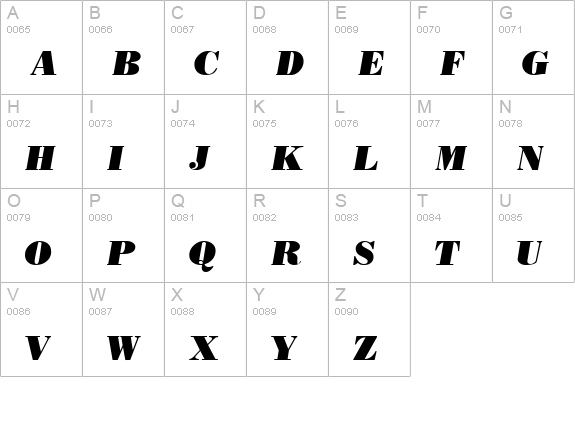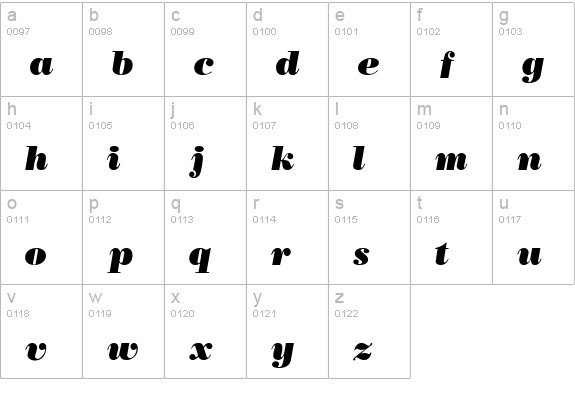
BostonBlack kursiv Font Details
Introducing BostonBlack kursiv font, a sleek and sophisticated typeface perfect for adding a touch of elegance to any design project. This unique font features bold, slanted letterforms that exude a sense of modernity and style. With its clean lines and dramatic flair, BostonBlack kursiv is sure to make a statement in any application. The best part? BostonBlack kursiv font is available for free download at FontsMarket.com. Whether you're working on a branding project, website design, or any other creative endeavor, this font is a versatile choice that will elevate your work to the next level. Don't miss out on the opportunity to add BostonBlack kursiv to your font collection today!